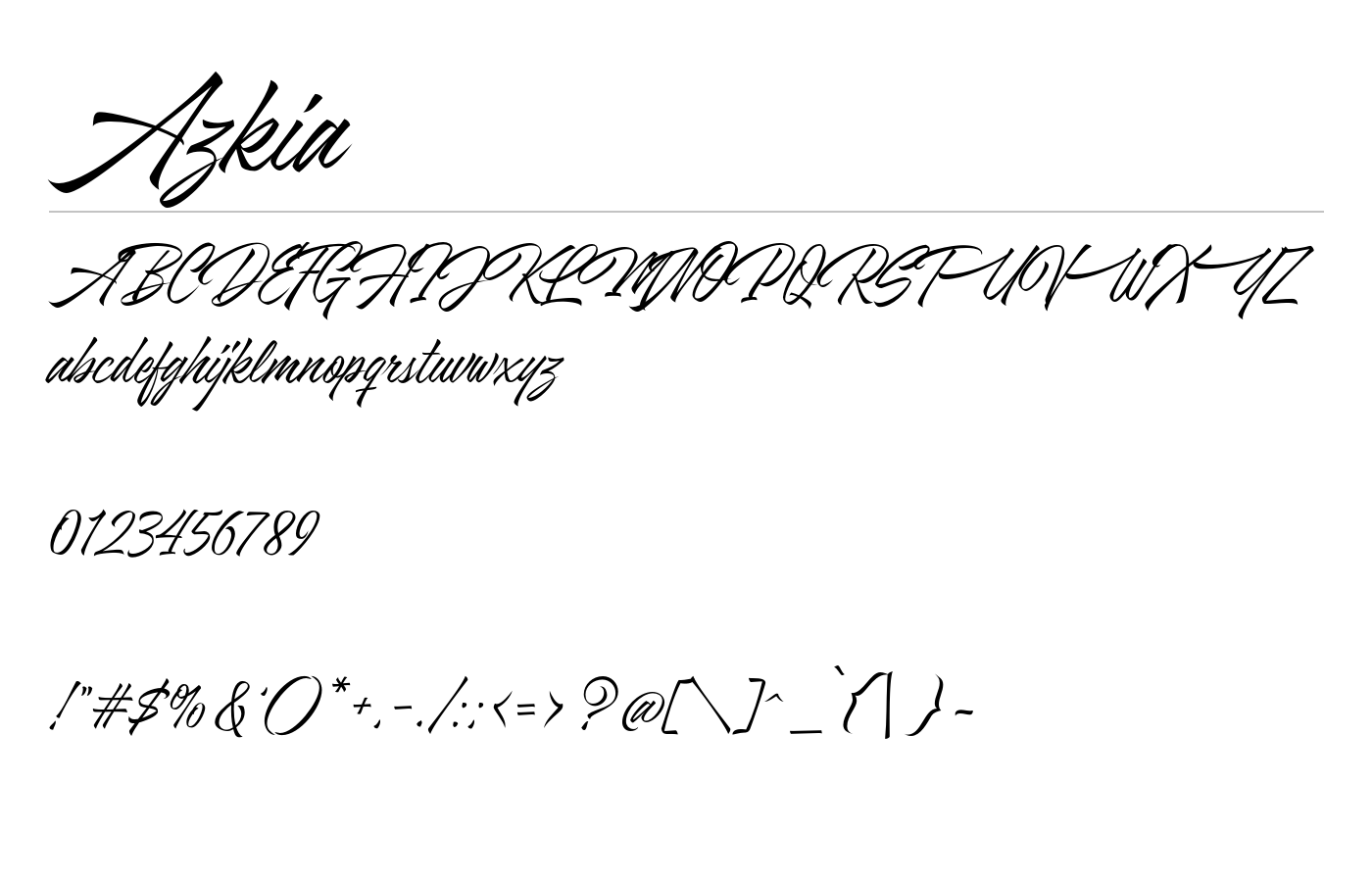
Azkia is an elegant script font with a stylish, handwritten feel that features slender, flowing strokes and a slightly condensed form. Its refined calligraphic style makes it perfect for luxury branding, invitations, and sophisticated headlines where a graceful, personal touch is desired. This font communicates a sense of elegance and creativity, making it ideal for fashion, beauty, and lifestyle projects.
Azkia Font